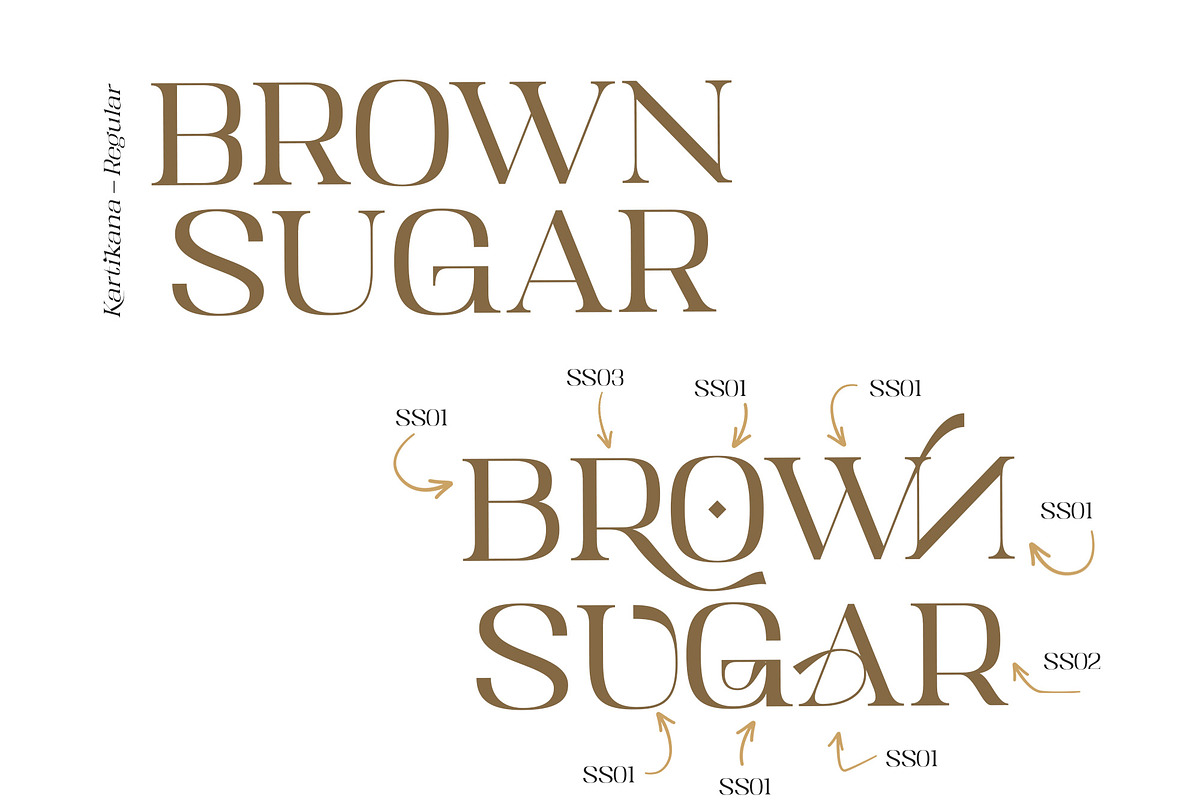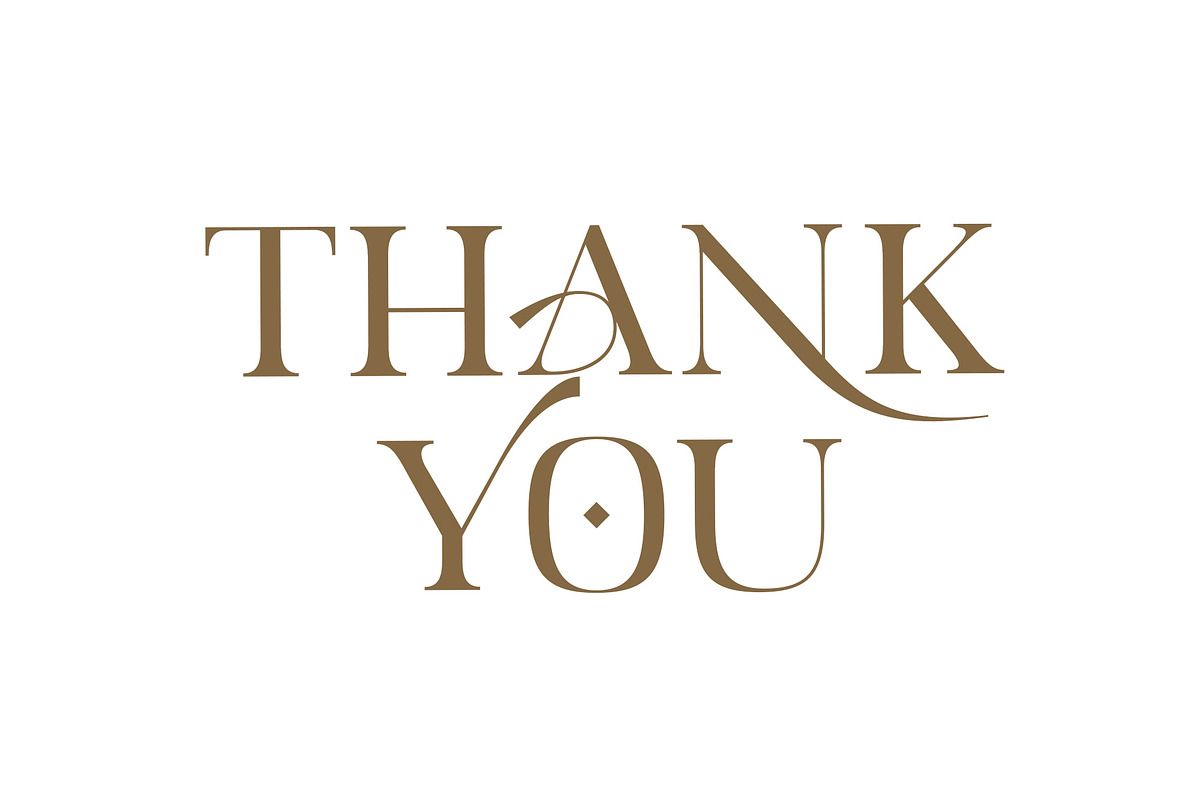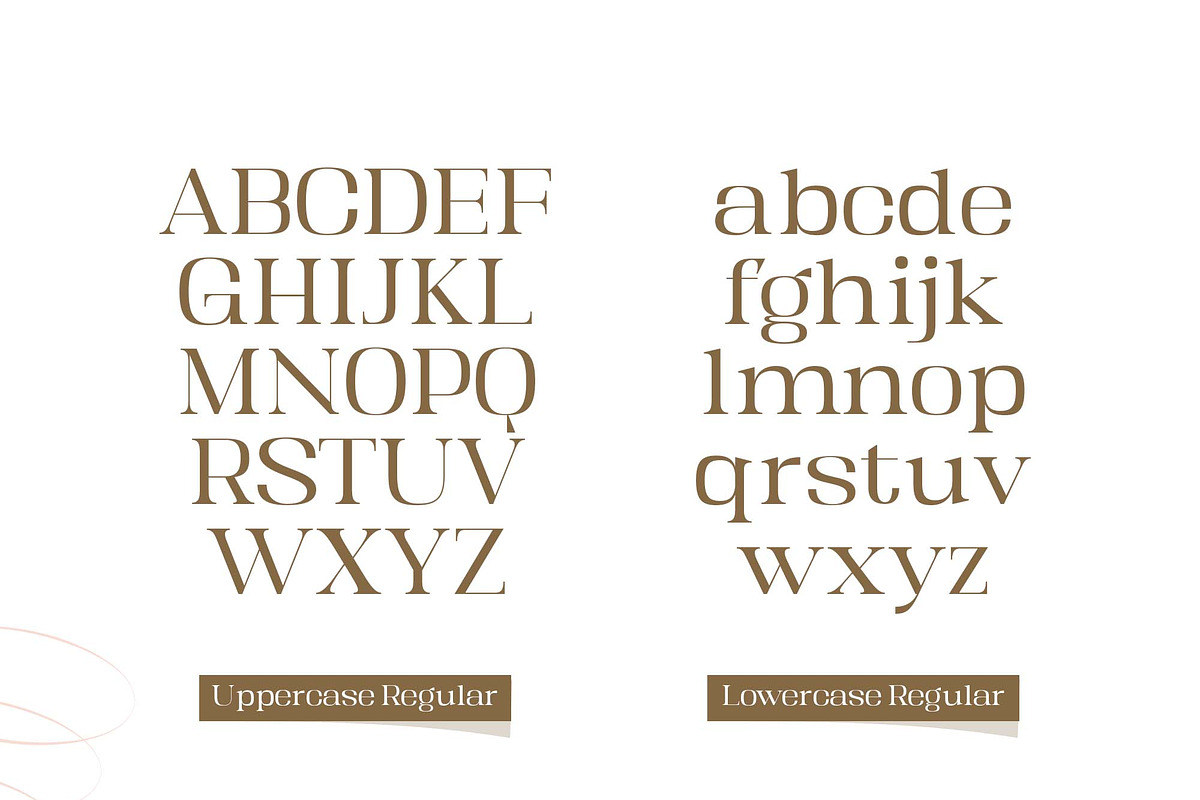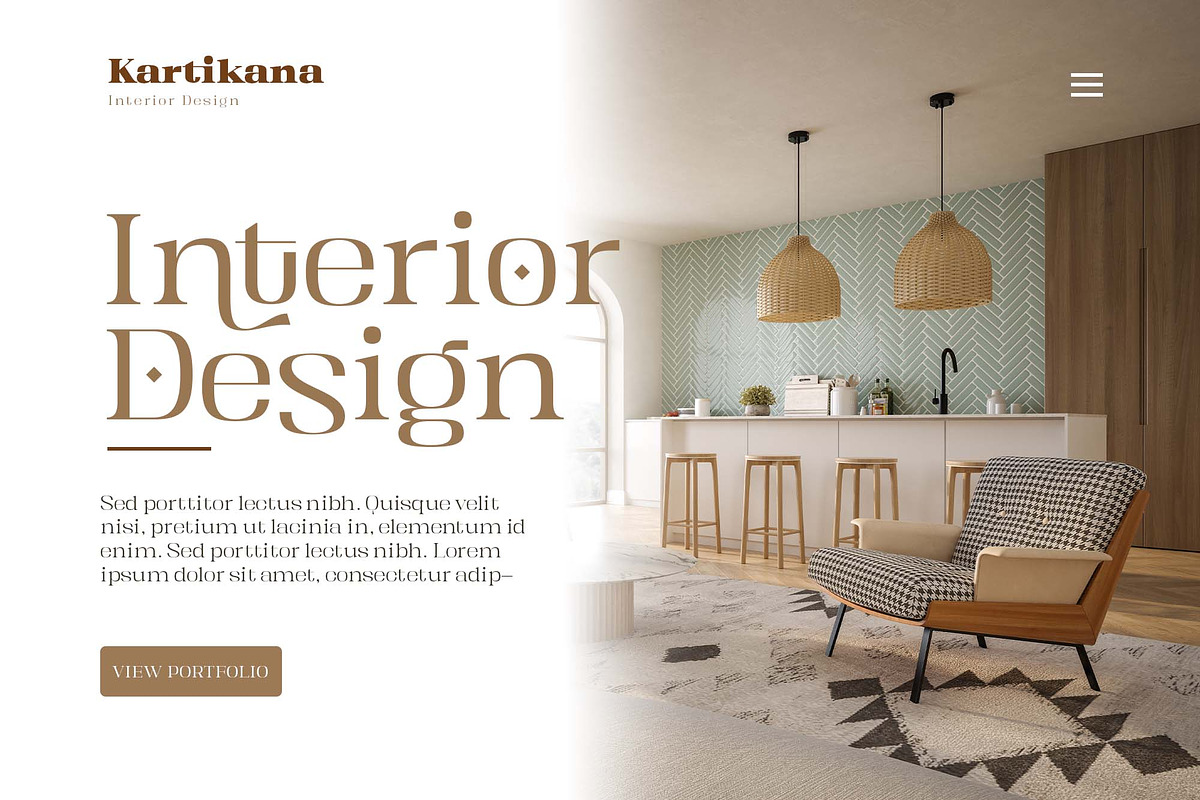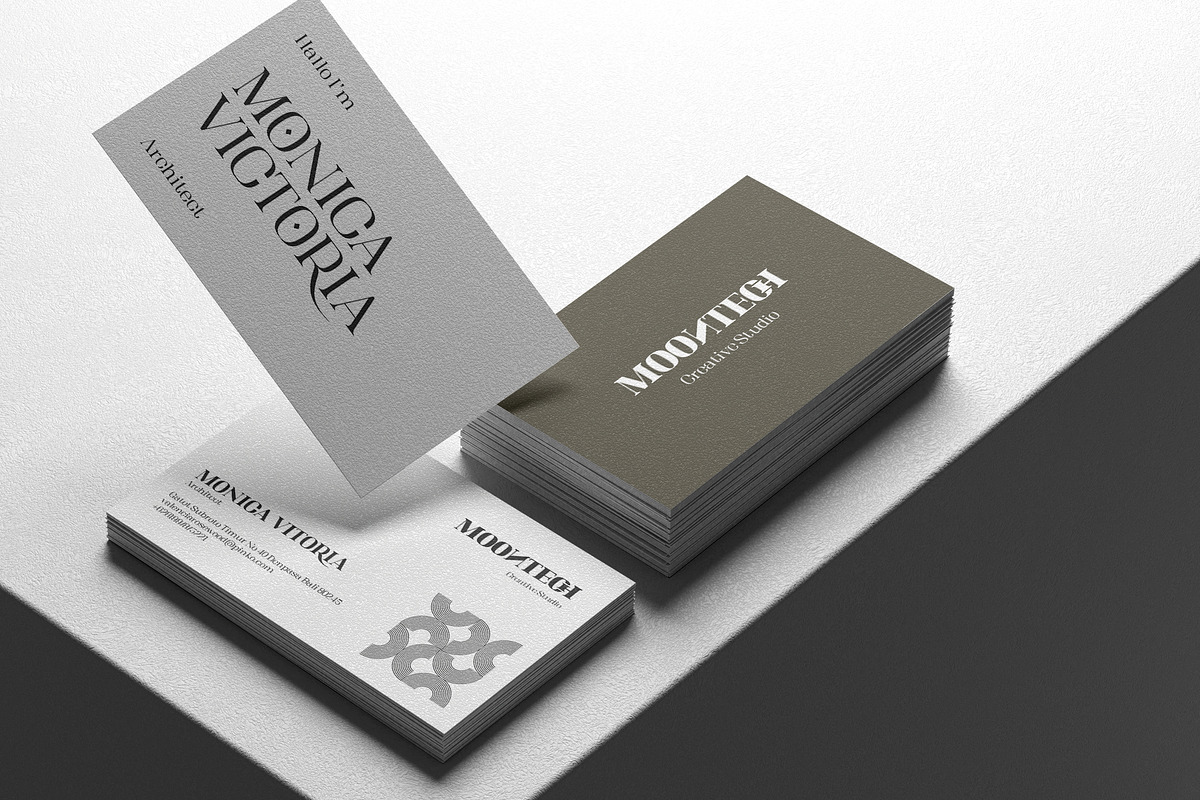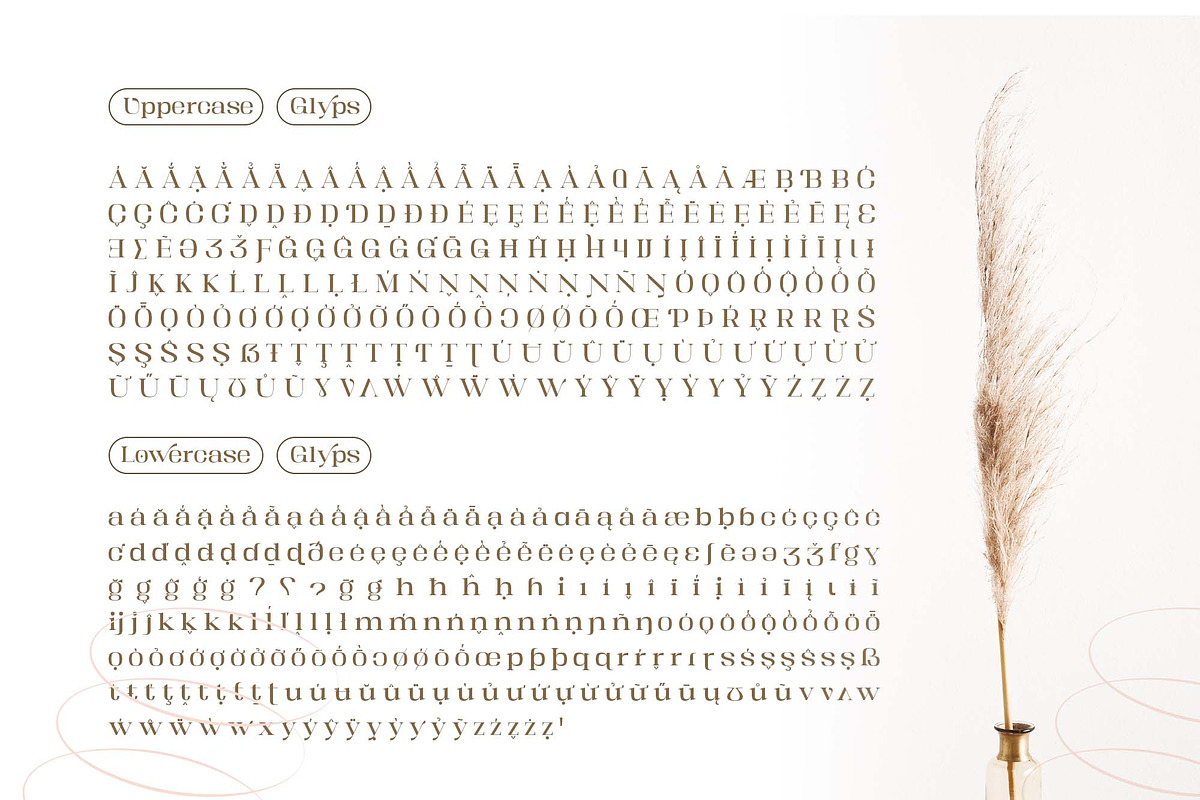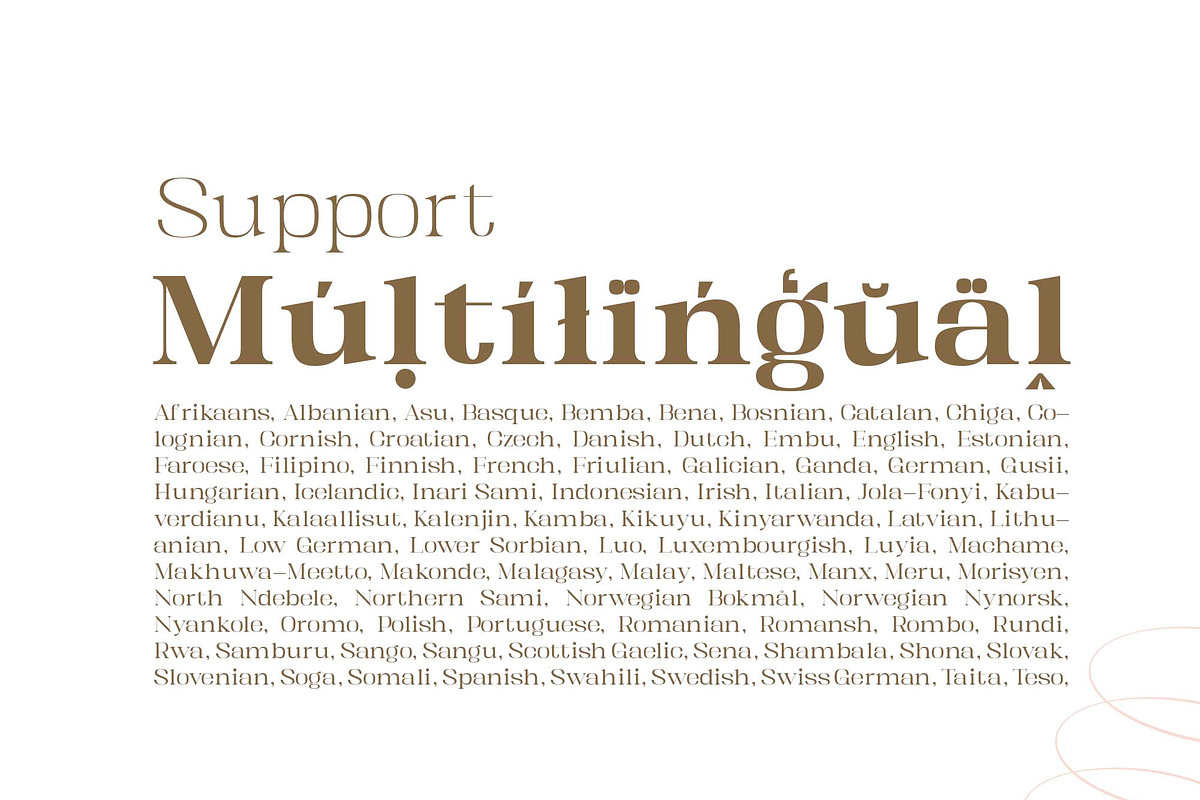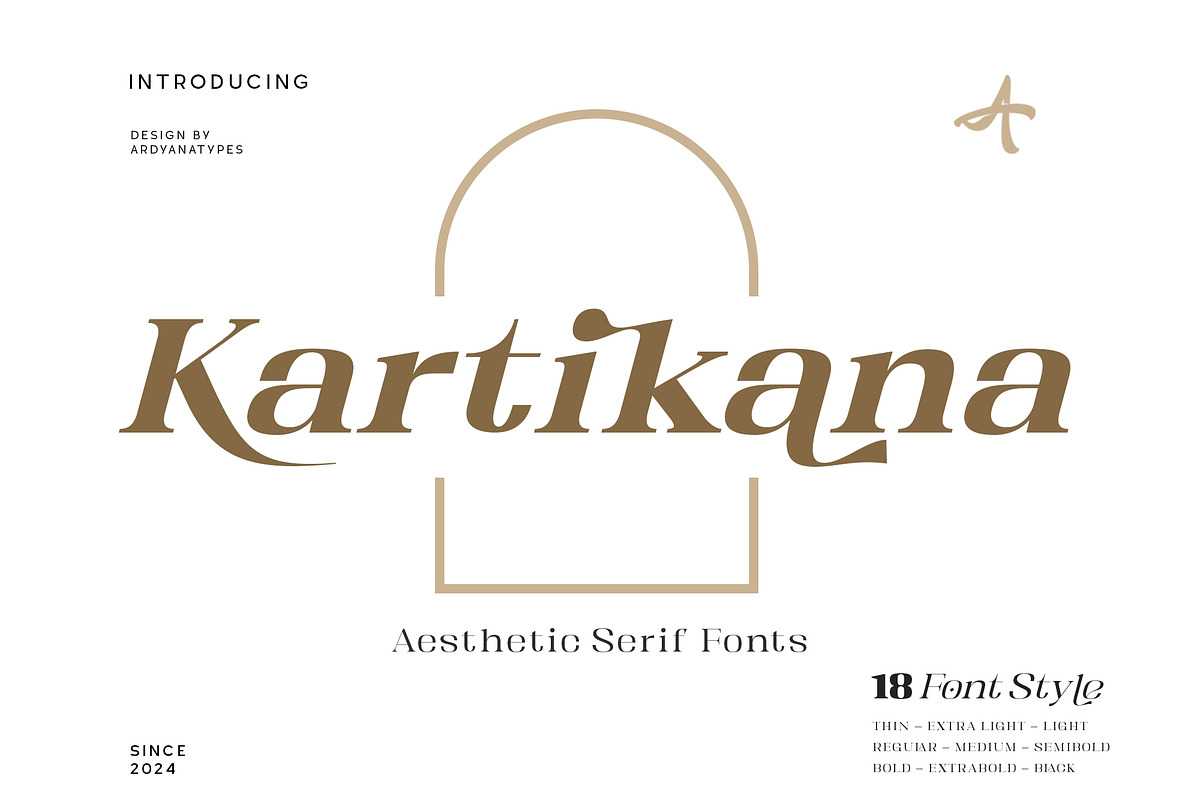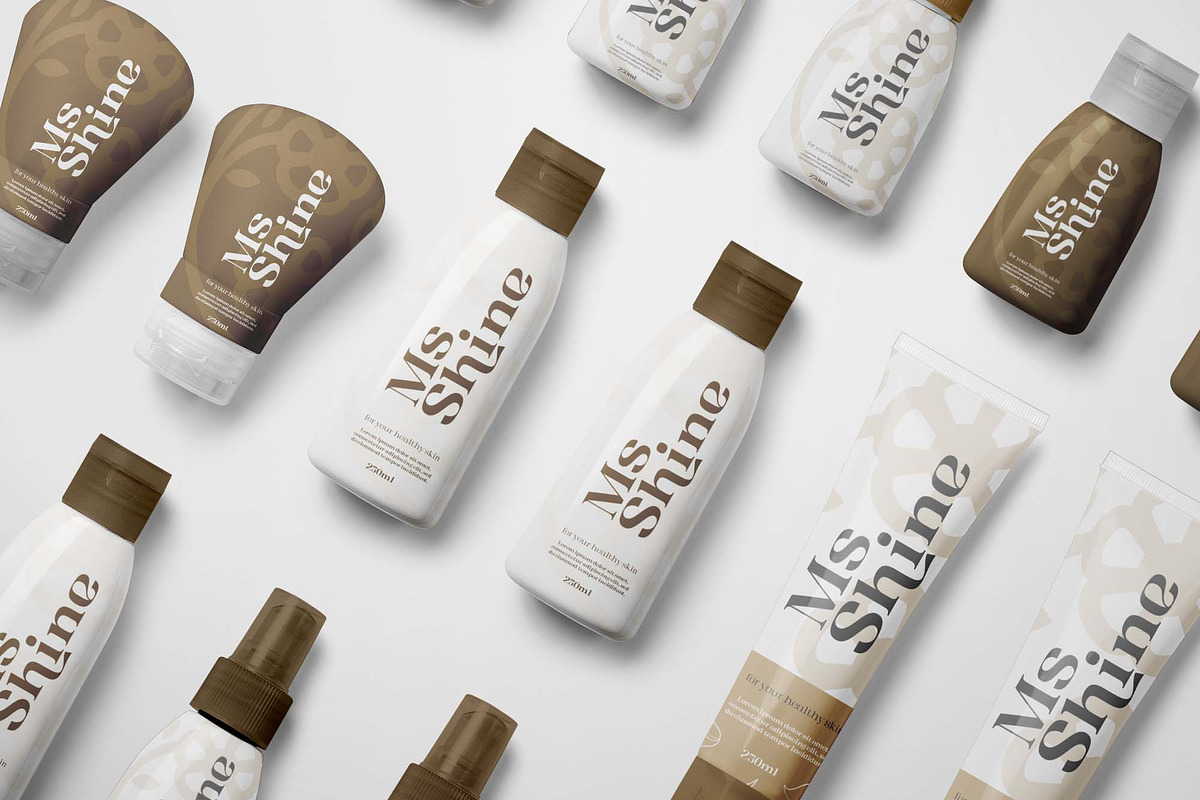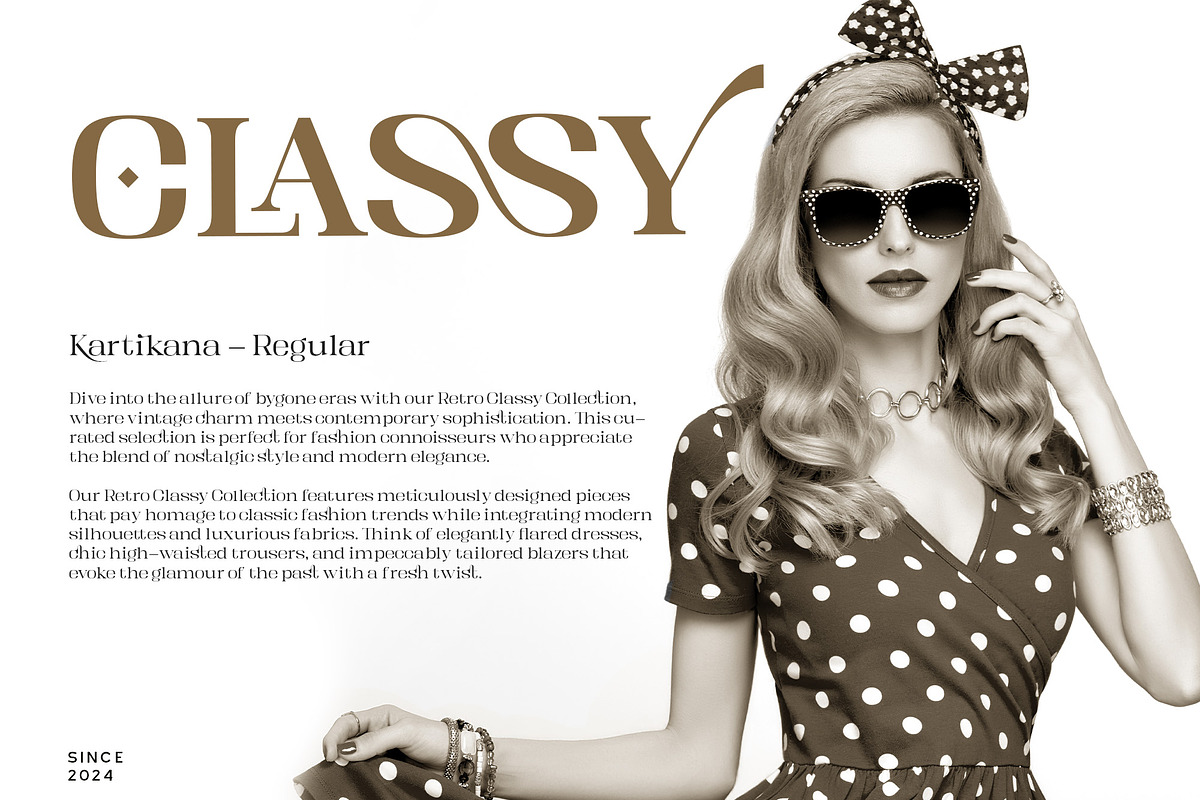
Kartikana Serif
Kartikana is a serif font that combines classic elegance with a modern touch, resulting in stunning typography that exudes elegance. Inspired by the latest modern font trends, Kartikana comes with a very relevant and chic design, in line with the current popular styles.
Kartikana offers an OpenType feature that allows using a wide variety of styles in one font, providing unlimited flexibility and creativity in your designs. With multilingual support, Kartikana can be used in multiple languages, conveying your message clearly and beautifully worldwide.
This font is perfect for various creative projects, from book covers, magazines, advertisements, and products to movie titles. Whatever your design needs, Kartikana is ready to help you express your vision with unmatched style.
A – Z Character Set
a – z Characters set
Numerals & Punctuations
Ligatures & Alternates